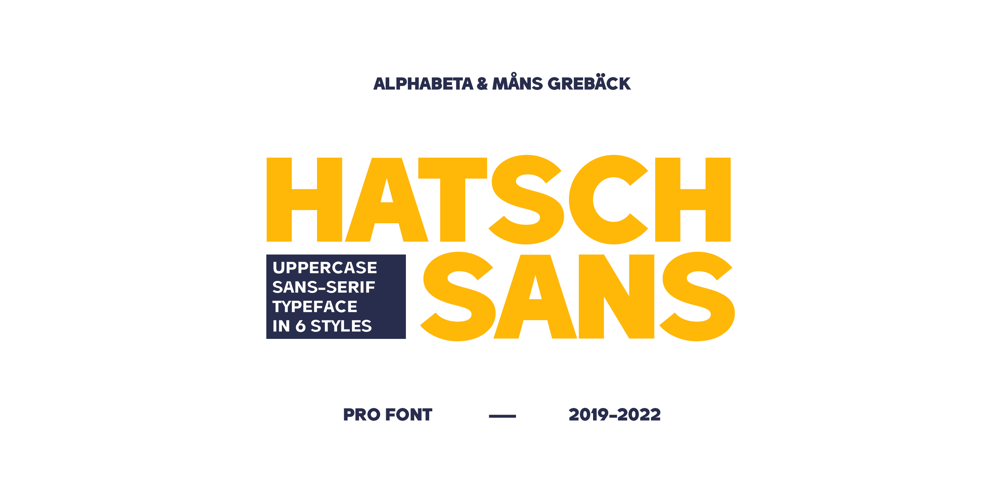
Hatsch Sans Font Family was designed by Måns Grebäck and published by Mans Greback. Hatsch Sans contains 6 styles and family package options. Hatsch Sans is a modern uppercase typeface. With balanced letterforms in a fresh appearance, this grotesque font is a new take on classic sans-serif design. It is legible and clean, optimized for a non-complex design or headline.The Hatsch Sans font family consists of Thin, Regular and Bold, and each weight as Italic, totalling in six styles.The font is built with advanced OpenType functionality and has a guaranteed top-notch quality, containing stylistic and contextual alternates, ligatures and more features; all to give you full control and customizability. It has extensive lingual support, covering all Latin-based languages, from Northern Europe to South Africa, from America to South-East Asia. It contains all characters and symbols you’ll ever need, including all punctuation and numbers.